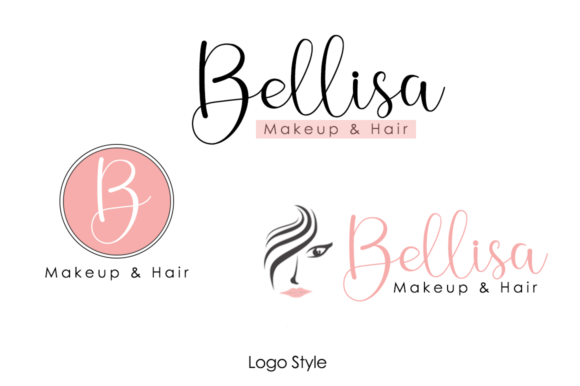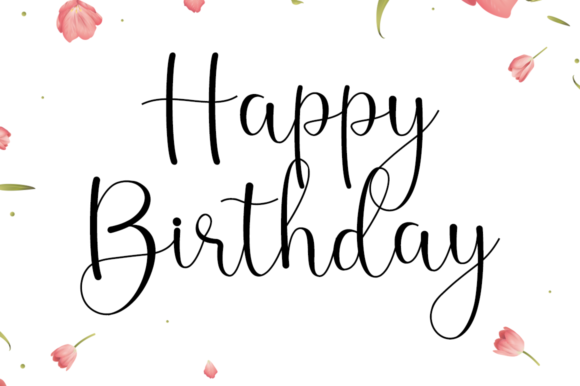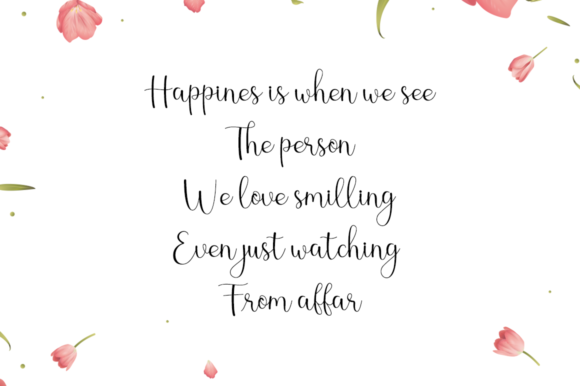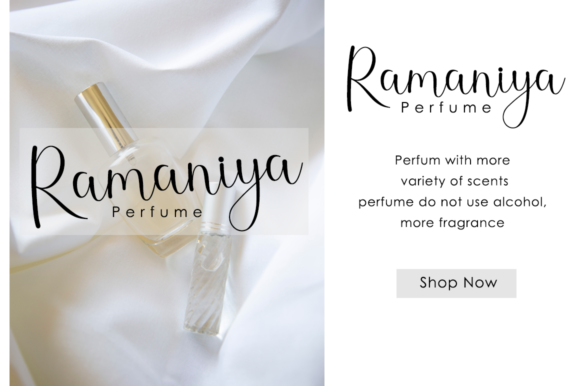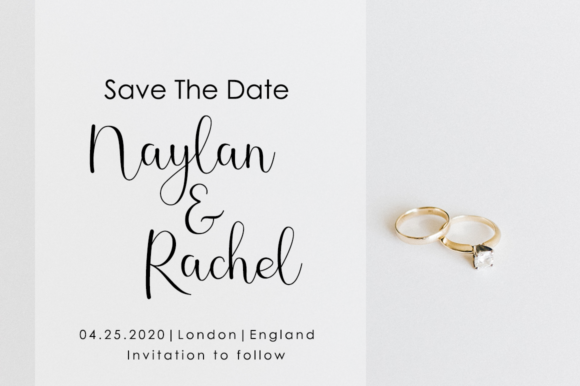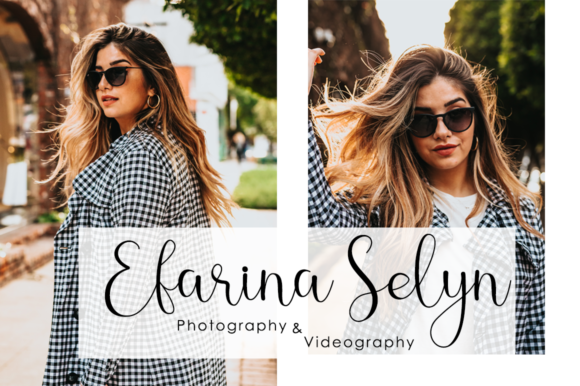
Introduction to Dianita Font
Dianita Font is a modern script font that feels incredibly romantic.
Use it to add an authentic and elegant vibe to your next DIY project .
Key Features of Dianita Font
Why Choose Dianita Font?
Dianita Font offers exceptional quality and versatility, making it a valuable addition to your design toolkit. Whether you’re creating for personal projects or commercial use, Dianita Font delivers professional results.